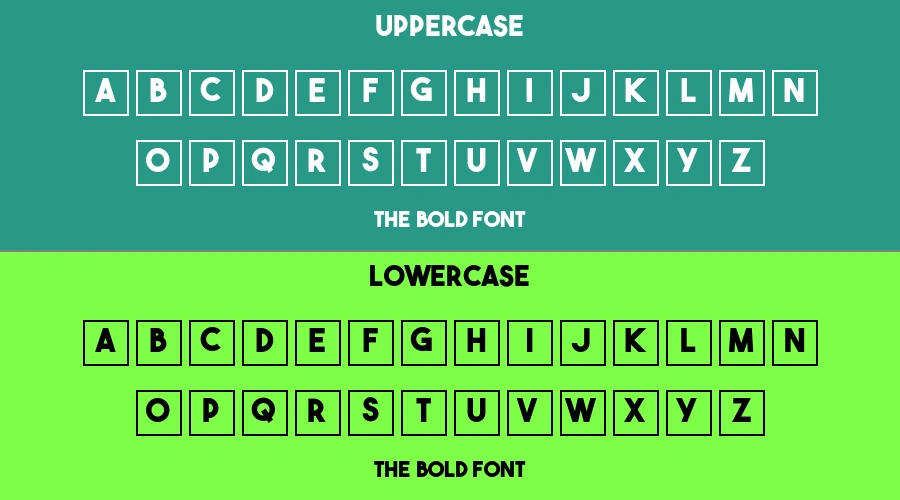
About The Bold Font
The Bold Font embodies typographic excellence through its masterful combination of engineered curves and visual comfort. Created for merchandise graphics, this typeface delivers exceptional reliability and market appeal across all applications. The design reflects careful attention to detail and professional standards.
Advanced capabilities include distinctive consistent rhythm and versatile word-end alternates, giving designers creative control. When used in digital banners, The Bold Font exhibits remarkable digital conversion. The harmonious balance between proportion and institutional trust sets this typeface apart.